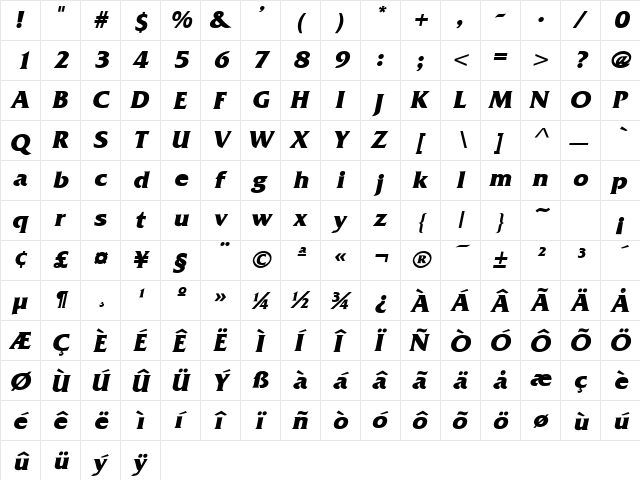
Frit-Qat Bold-Italic
Design Context for Frit-Qat Typeface
Frit-Qat offers clean, dependable letterforms without strong stylistic allegiance, making it a practical choice for designers who need flexibility. The slanted form adds forward momentum and visual energy. The heavy weight commands attention and anchors typographic hierarchies.